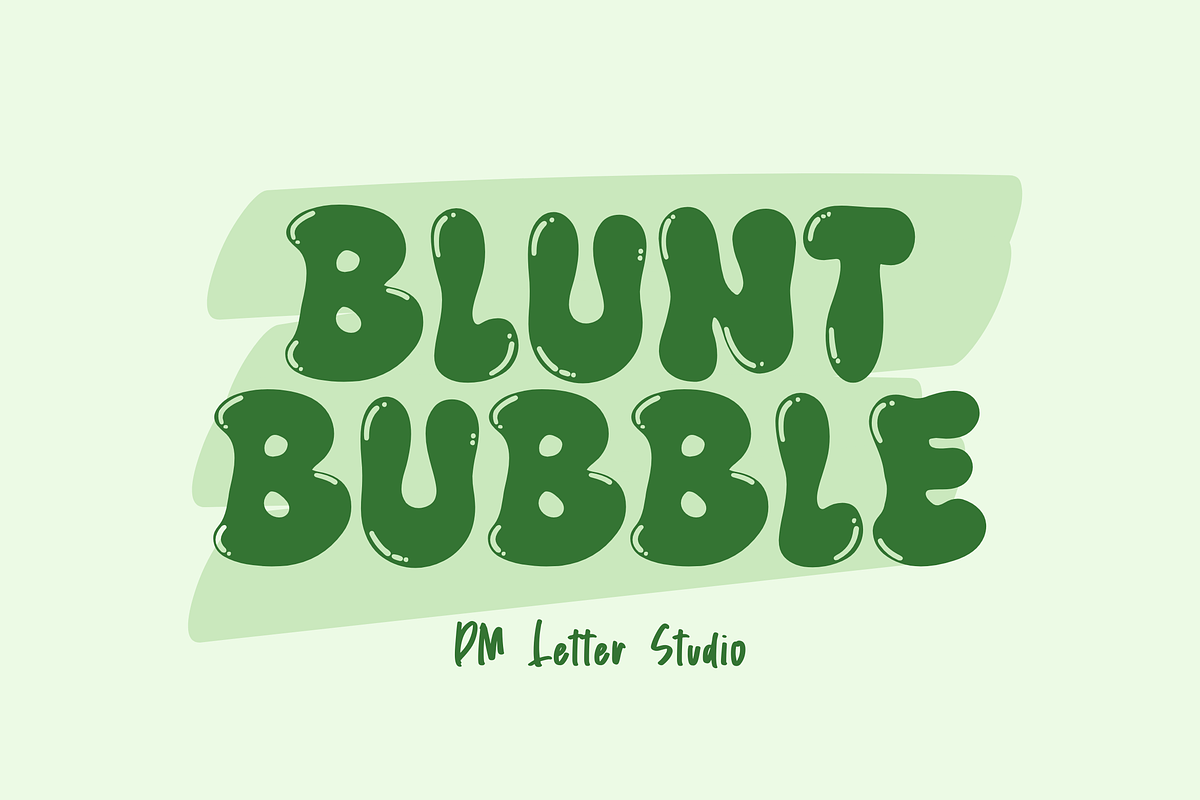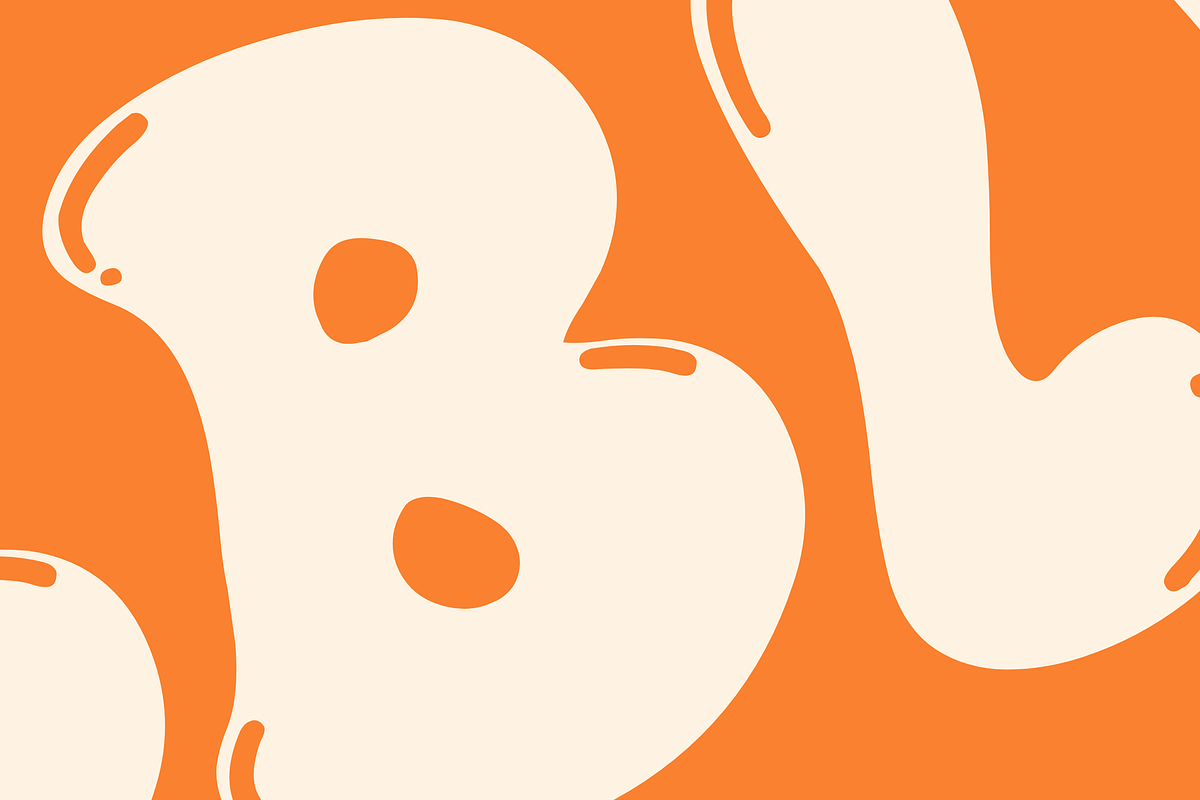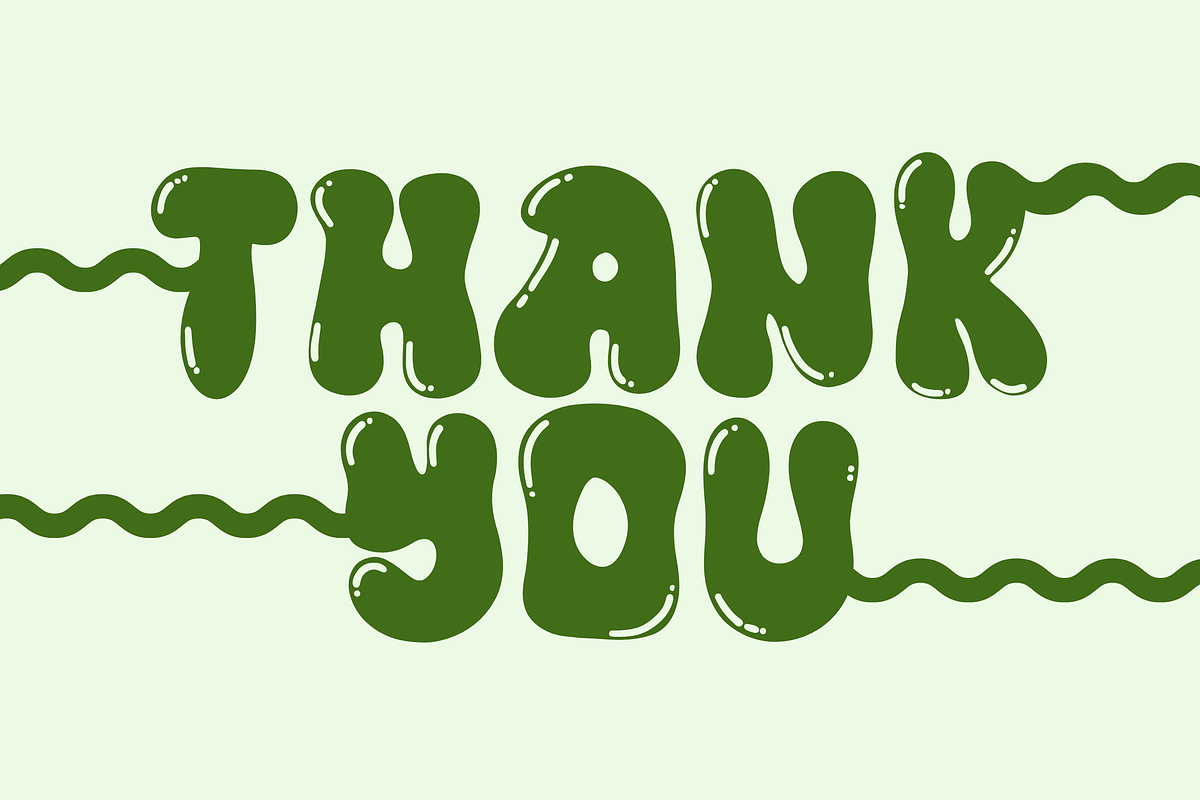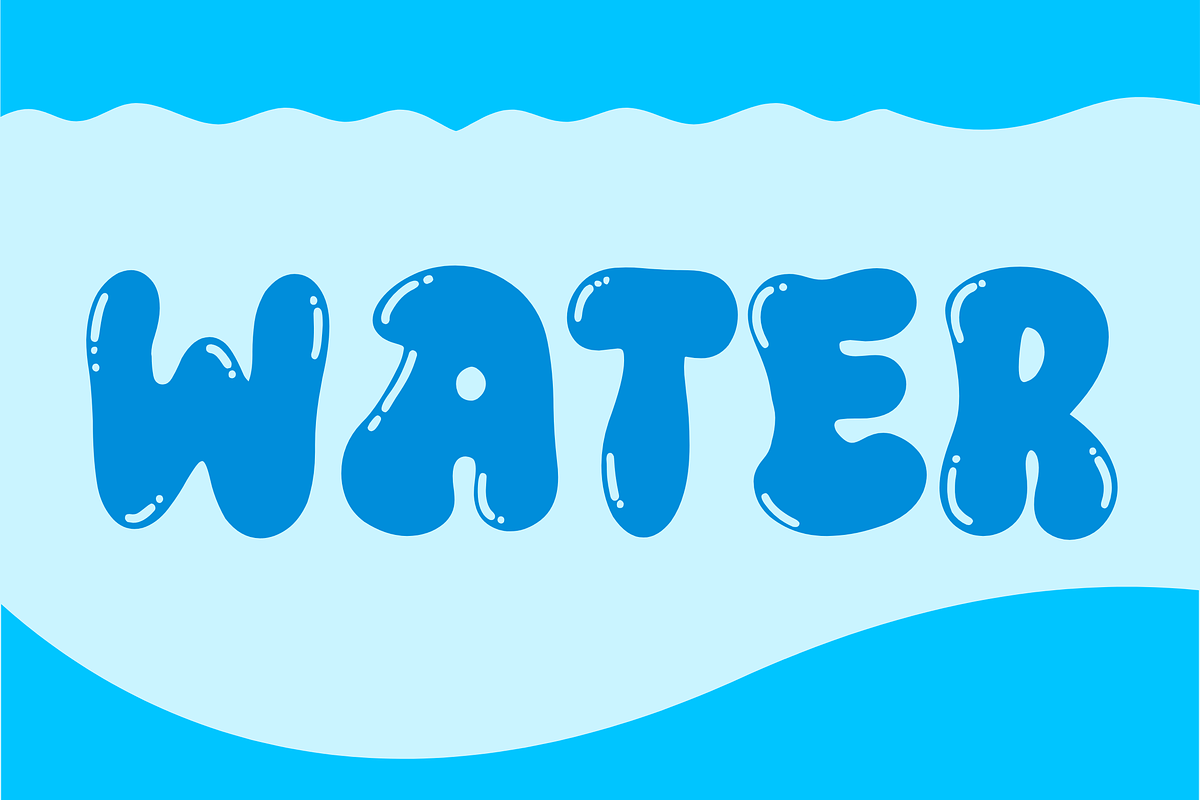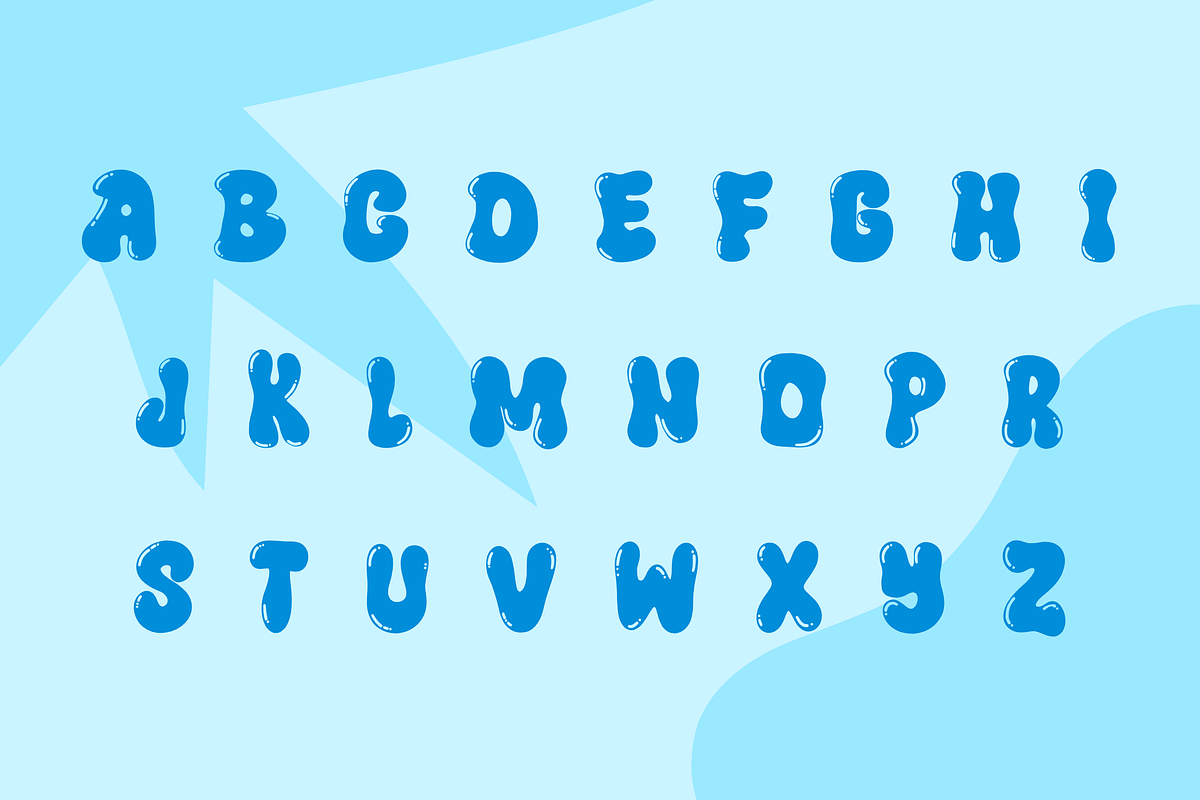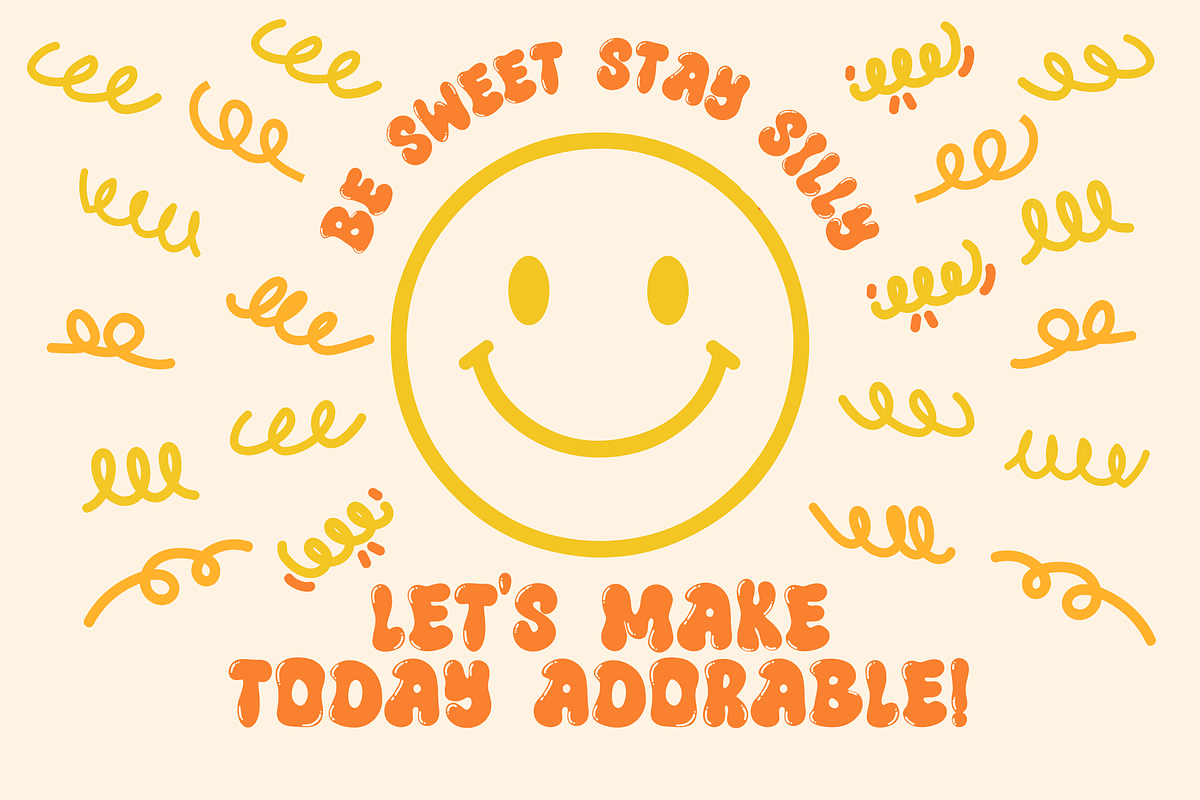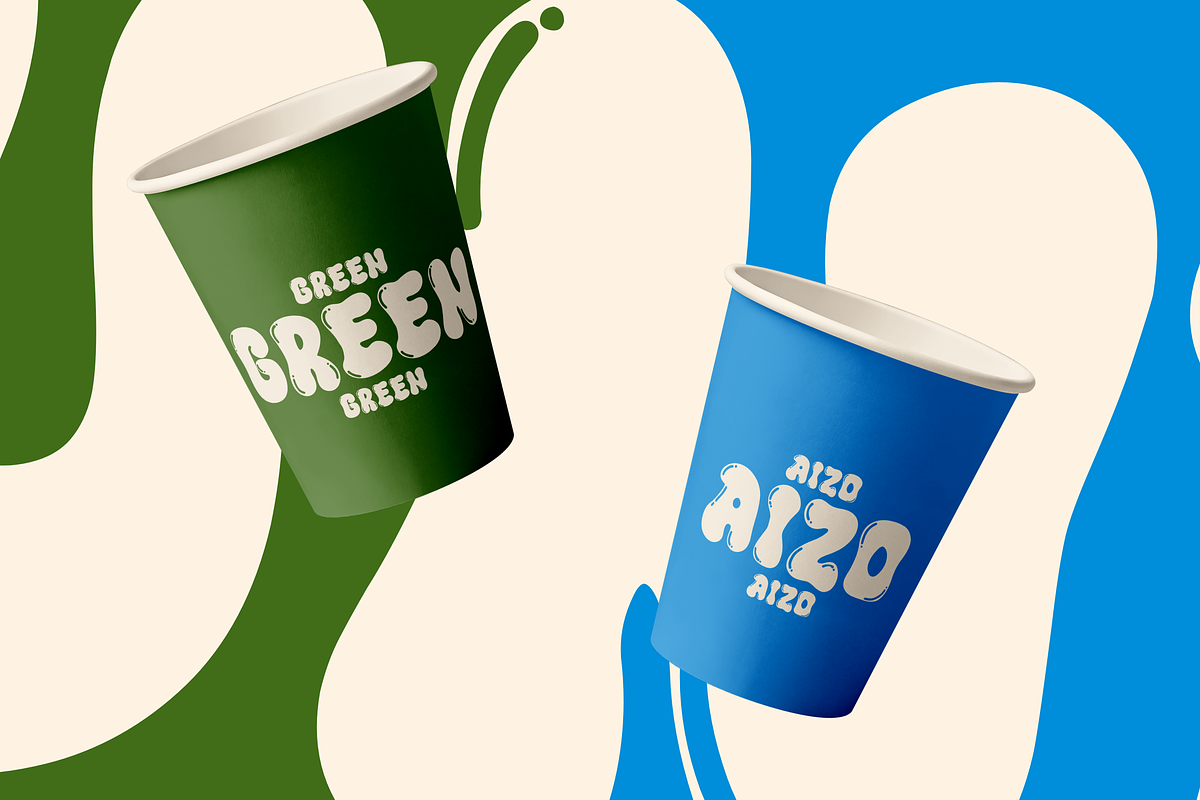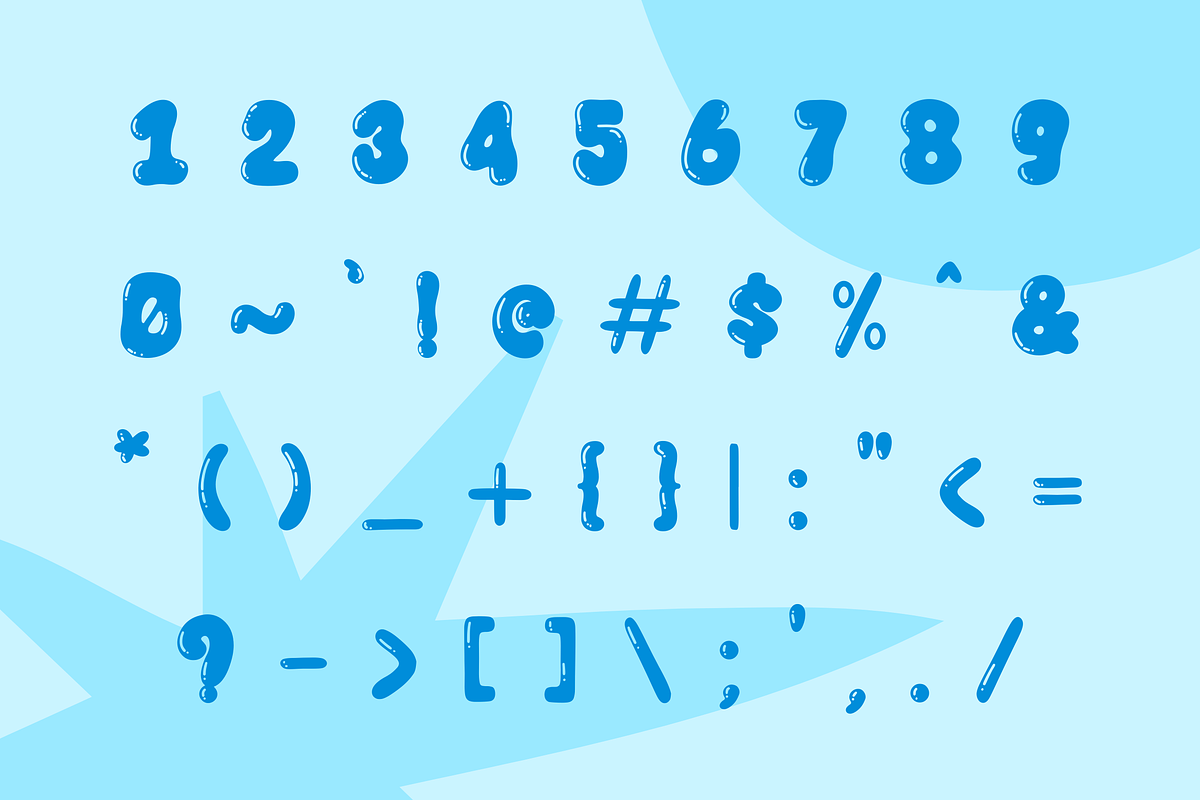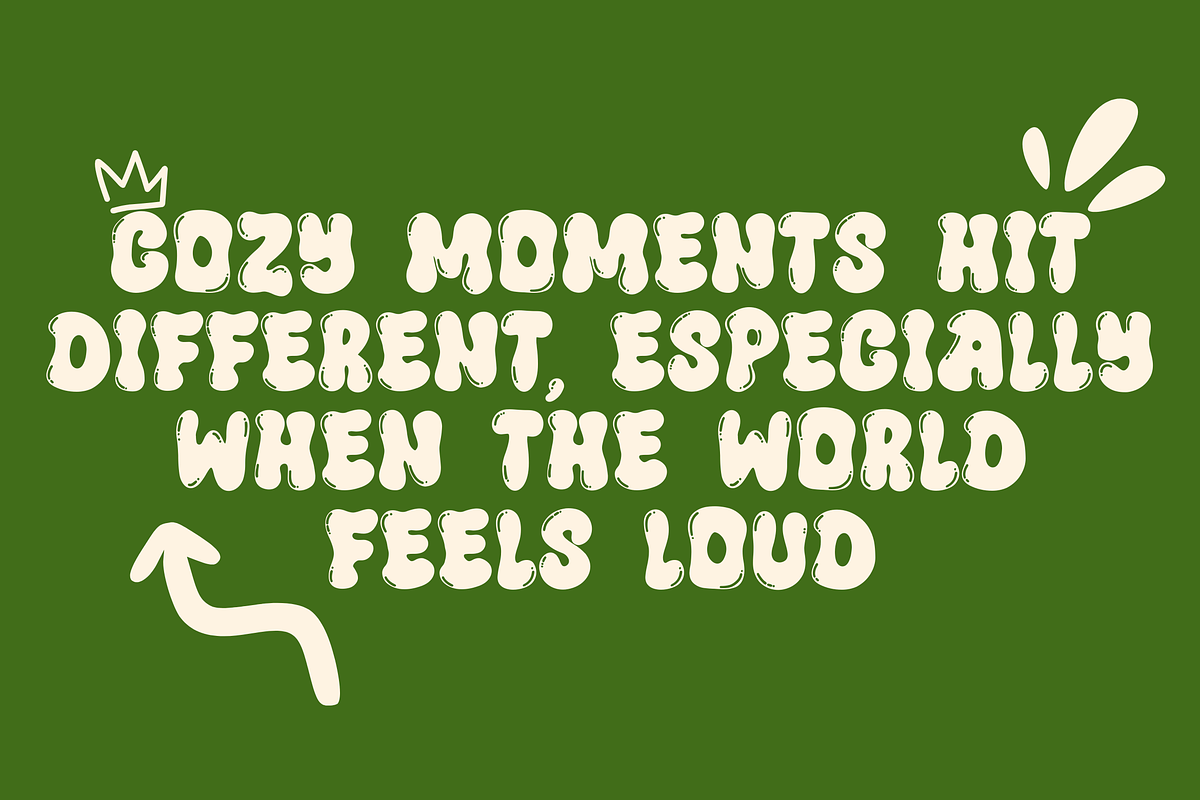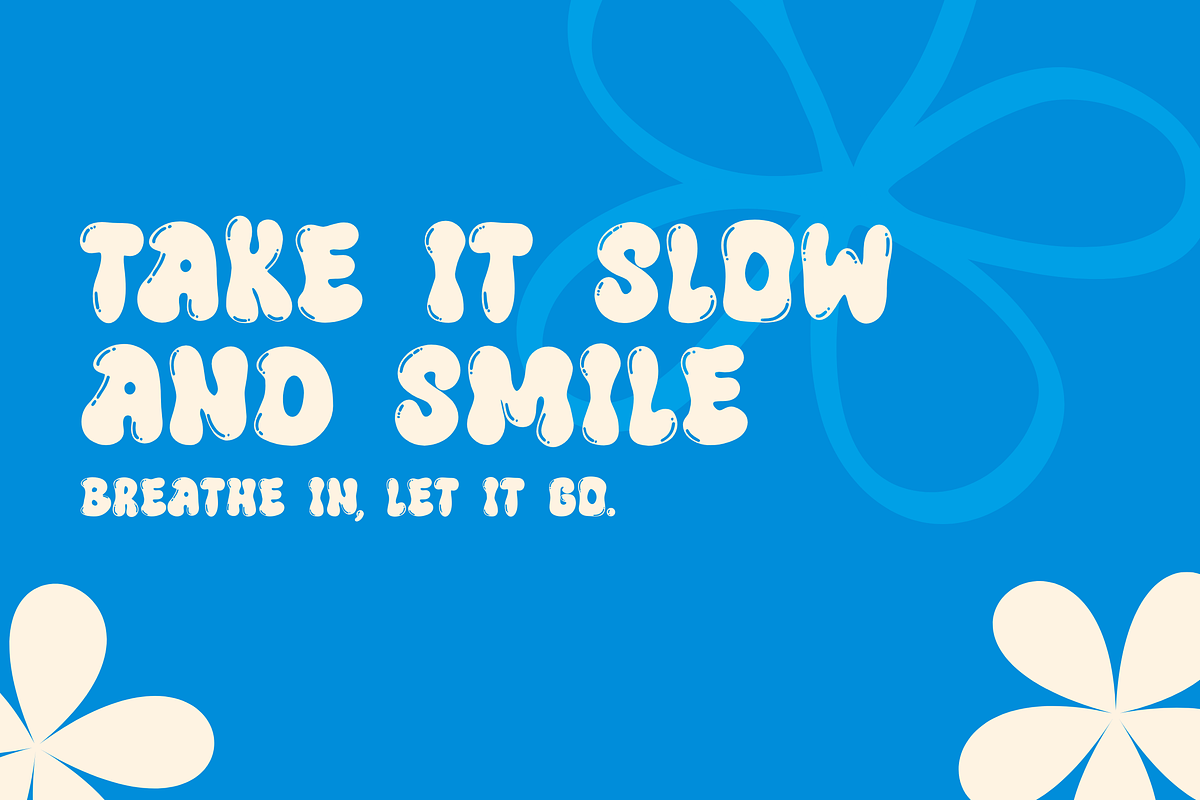
Blunt Bubble
Meet Blunt Bubble, the Playful Chunky Display Font
Blunt Bubble is a bold, rounded display font built to make designs feel fun, loud, and impossible to ignore. The letterforms are thick and soft with a blunt edge that gives them a confident, cartoon-like personality. Each character feels inflated and friendly, like bold lettering shaped from smooth bubble foam. It is perfect for projects that need warmth, humor, and strong visual impact. Use Blunt Bubble for kids branding, snack packaging, sticker designs, YouTube thumbnails, social media graphics, birthday invitations, and playful merchandise. As a result, your typography feels cheerful, expressive, and instantly eye-catching.
Fast layouts with the Blunt Bubble Font
Start with short, bold words to maximize impact. After that, add bright solid colors or soft gradients to enhance the inflated bubble look. Because the shapes are thick and rounded, avoid overly busy backgrounds for better clarity. In addition, pair it with a simple sans serif for subtext and supporting details. Finally, try color combinations like pastel pink and cream, sky blue and white, lemon yellow and orange, or mint green and coral for a cohesive, playful vibe.
Creative uses and quick wins
- Kids' clothing logos and playful brand identities
- Snack packaging and candy label designs
- YouTube thumbnails and social media covers
- Birthday cards, party invitations, and stickers
- Uppercase and lowercase letters
- Numbers and basic punctuation
Design tips for Blunt Bubble
Use this font mainly for headlines and short phrases. Also, experiment with subtle shadows or soft outlines to create a floating effect. For print projects, choose high-contrast color pairs to maintain clarity. For digital content, increase size slightly so the rounded shapes stay crisp on mobile screens. Finally, combine it with doodles, stars, sparkles, or simple shapes to amplify the fun atmosphere.